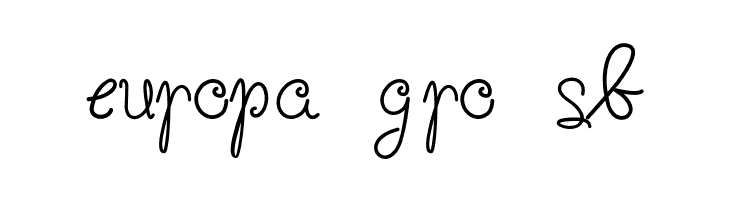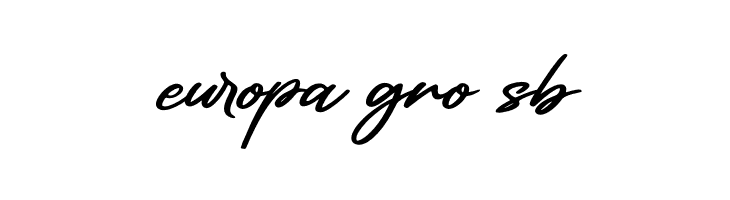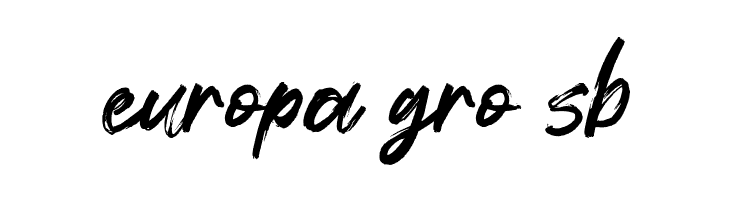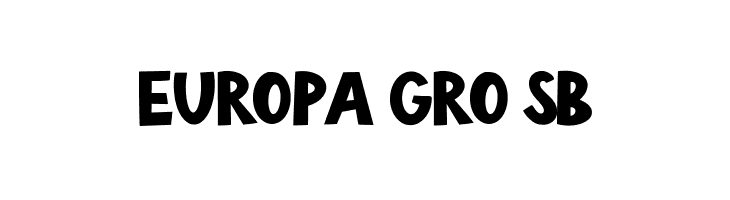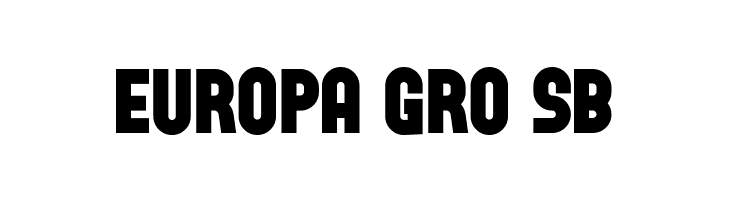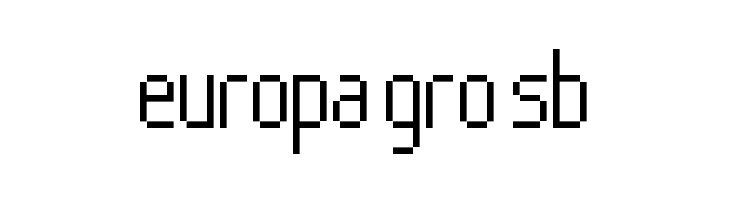
A bold, geometric typeface with a vintage poster feel, ideal for impactful headlines.
A bold, geometric font with thick strokes and a modern aesthetic.
A versatile font with both grunge and clean styles, ideal for dynamic and modern designs.
A bold, geometric font with uniform stroke width and strong presence.
A bold, brush-style font with dynamic and energetic strokes.
A playful, handwritten script font with smooth, flowing strokes.
A cursive, flowing font with elegant, sweeping strokes.